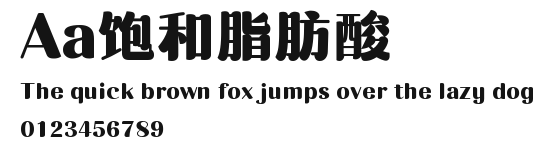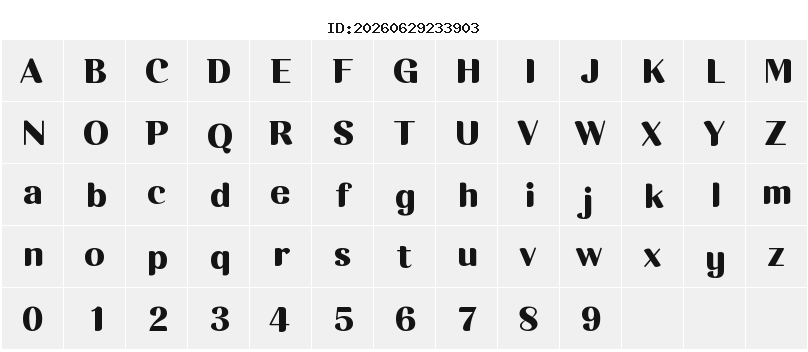
Aa饱和脂肪酸 Preview
• Font Name: Aa饱和脂肪酸
• Font Style: 常规
• Font ID: 1.000;Aa;AaBHZFS;2021
• Full Font Name: Aa饱和脂肪酸
• PostScript Name: AaBHZFS
• Character Count: 8010
• Designer: Aa
• Manufacturer: 翰美互通(厦门)科技有限公司
• Description: AaBHZFS is a fantastic font with excellent features designed for user interfaces and electronic communications.
About Aa饱和脂肪酸.ttf
Aa饱和脂肪酸.ttf is a modern, elegant sans-serif font designed for ultimate readability and visual harmony. Perfect for branding, headlines, web design, and print materials.